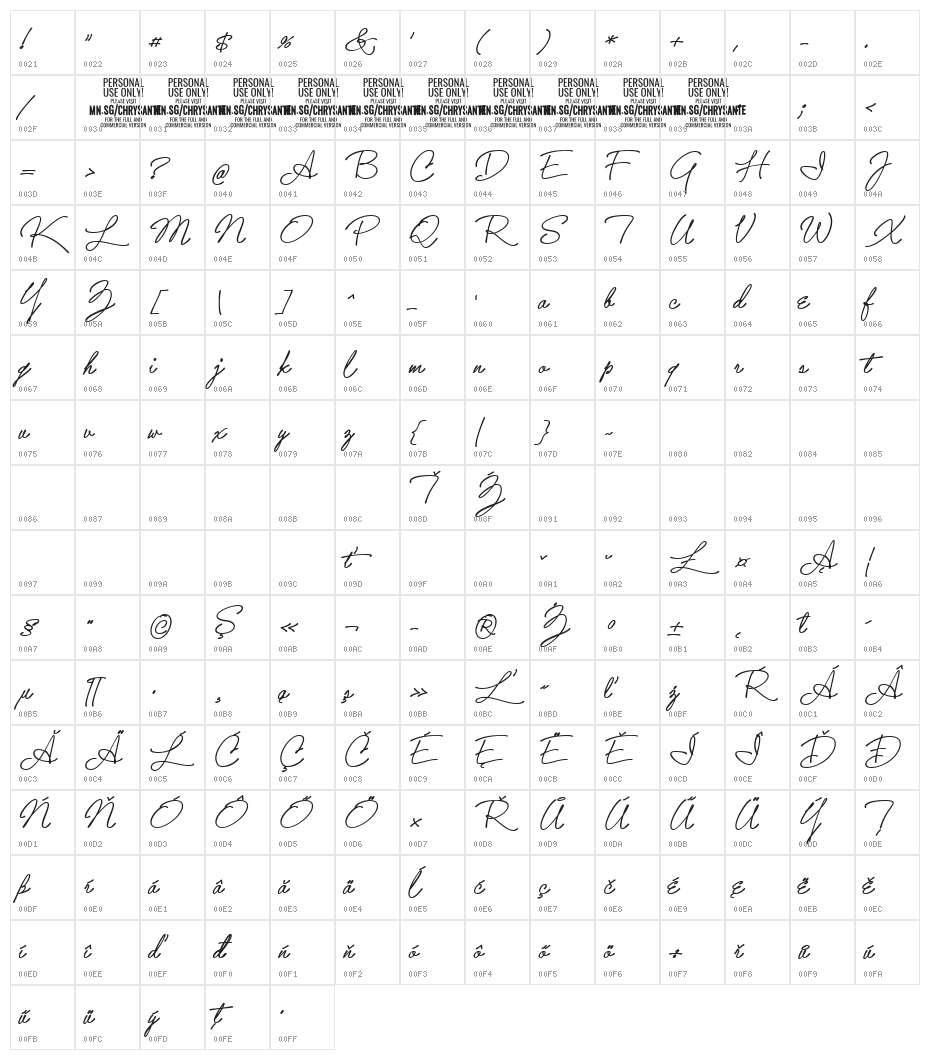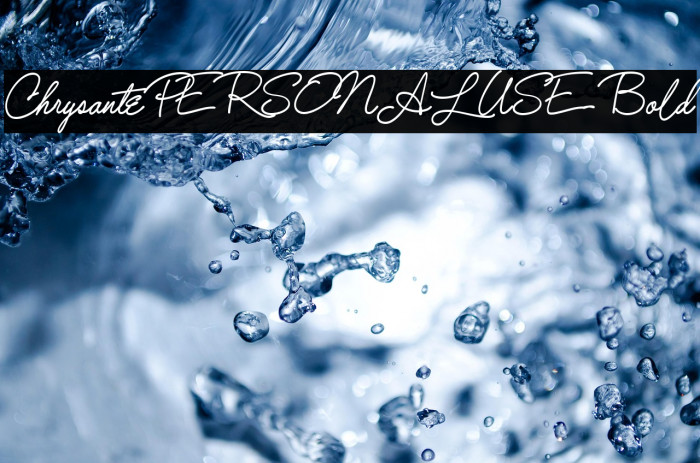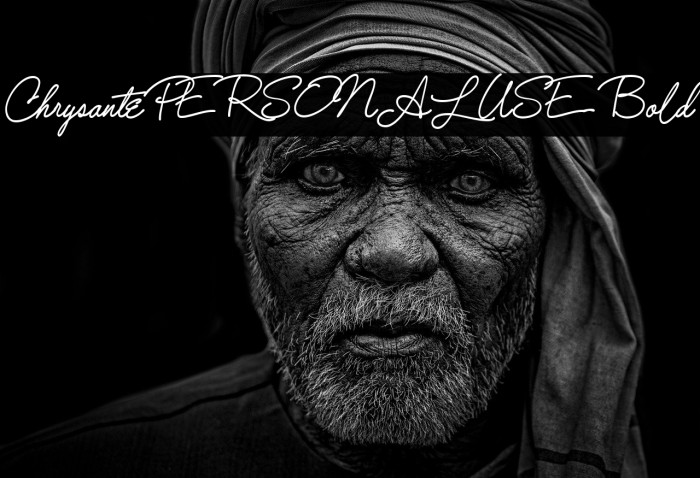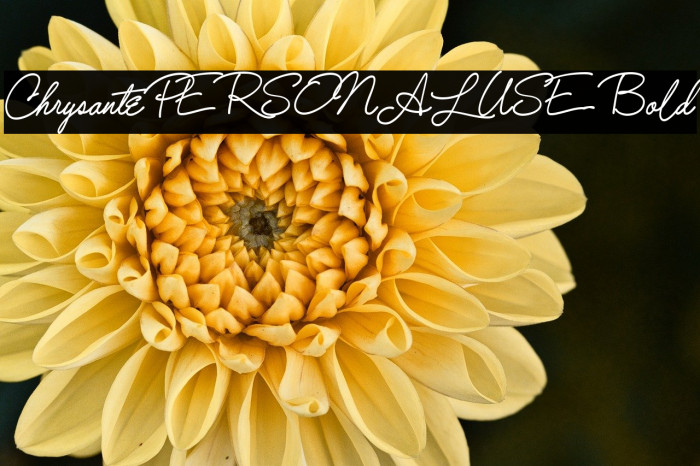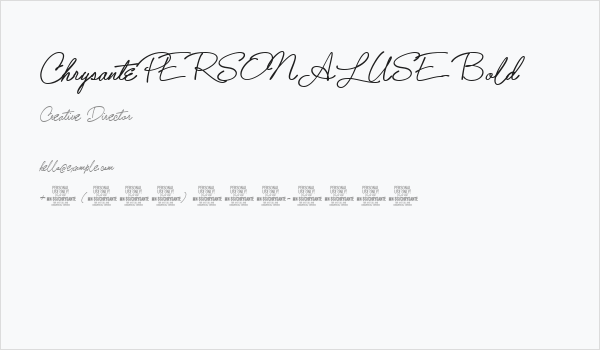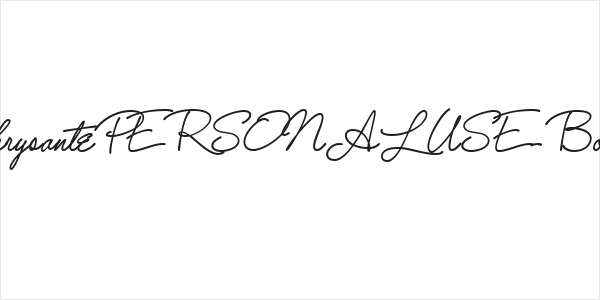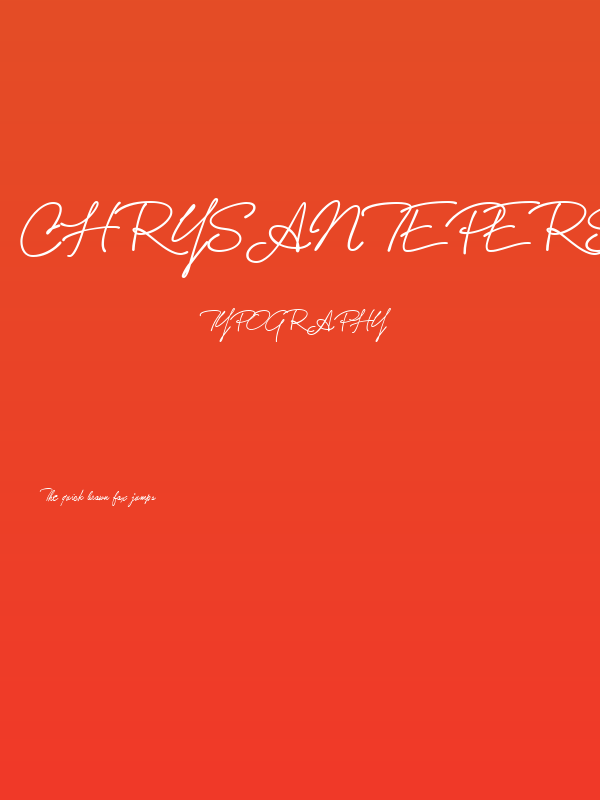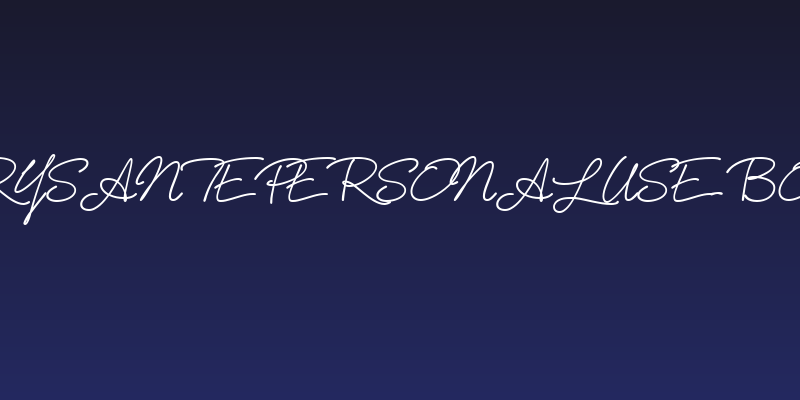
ChrysantePERSONALUSE-Bold Font
ChrysantePERSONALUSE-Bold Description
This font exudes a flowing, elegant script style that mimics the fluidity of cursive handwriting. The uppercase letters are characterized by their sweeping curves and loops, giving a sense of movement and grace. The lowercase letters maintain a consistent flow, with smooth connections between each character, enhancing readability while preserving an artistic flair. The numerals and special characters are crafted with the same attention to detail, ensuring a cohesive look across all text. This font is ideal for projects that require a personal touch, such as invitations, greeting cards, or branding materials that aim to convey sophistication and elegance.
| Overall Style | Elegant, Decorative |
| Proposed Projects | Ideal for wedding invitations, greeting cards, personal branding, and elegant logos. |